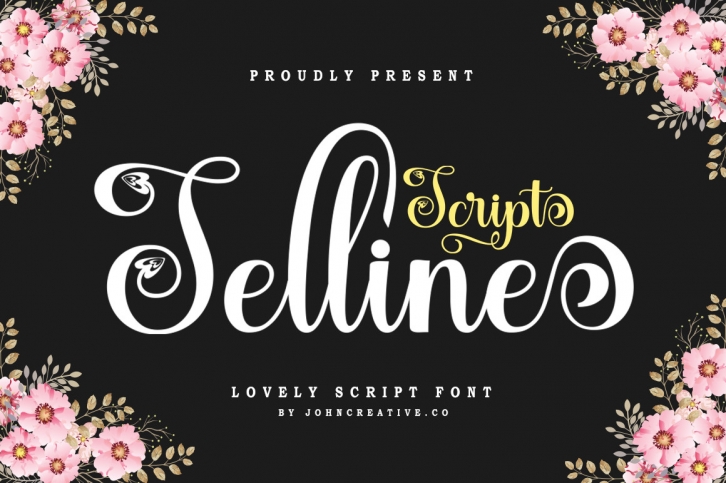
Selline Script feels equally gorgeous and contemporary. It looks stunning on wedding invitations, thank you cards, quotes, greeting cards, logos, business cards and every other design which needs a handwritten touch.